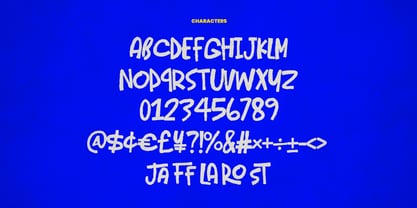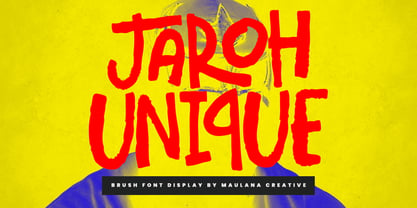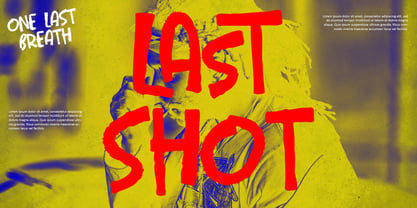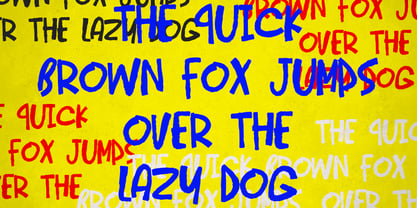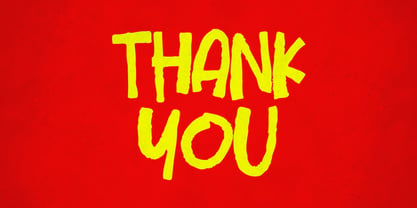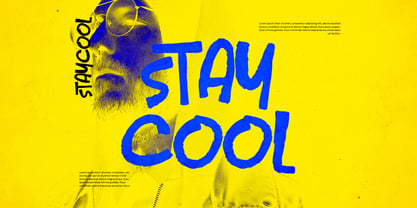
MC Jaroh Unique
by Maulana Creative
The MC Jaroh Unique Font Family was designed by Gilang Maulana and published by Maulana Creative. MC Jaroh Unique contains 1 styles. More about this family
Jaroh Unique is a bold dry brush display font with a raw, handcrafted feel. Its rough strokes and natural brush textures create an energetic and eye-catching look, perfect for designs that need intensity and personality. This font is ideal for, headlines, branding, social media graphics, and creative projects that demand a striking, artistic touch. Jaroh Unique comes with uppercase, numerals, punctuation, ligatures, and multilingual support, making it versatile for both digital and graphic designs. Whether you want to create a bold statement or add a hand-painted vibe to your work, this font will make your designs stand out.
Designers: Gilang Maulana
Foundry: Maulana Creative